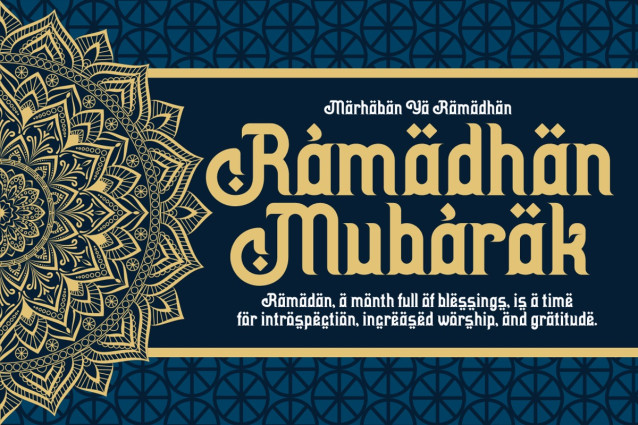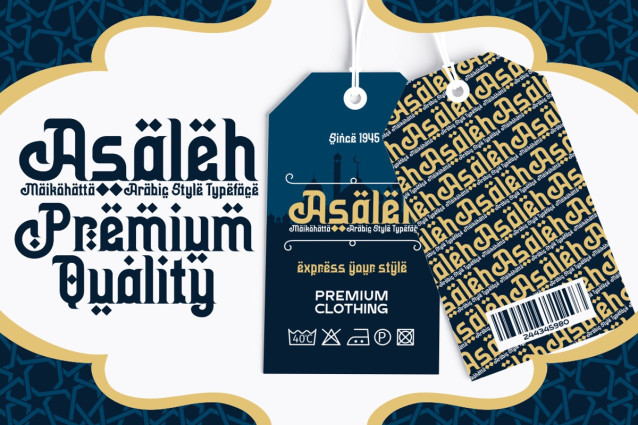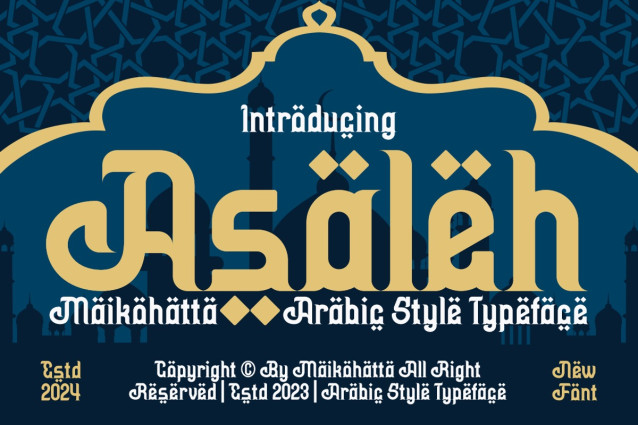
Asaleh Font
Asaleh Font is a bold and authentic display font. The font is suitable for any branding project like logo, Template Design, esport, and many more. outstanding in a wide range of contexts.